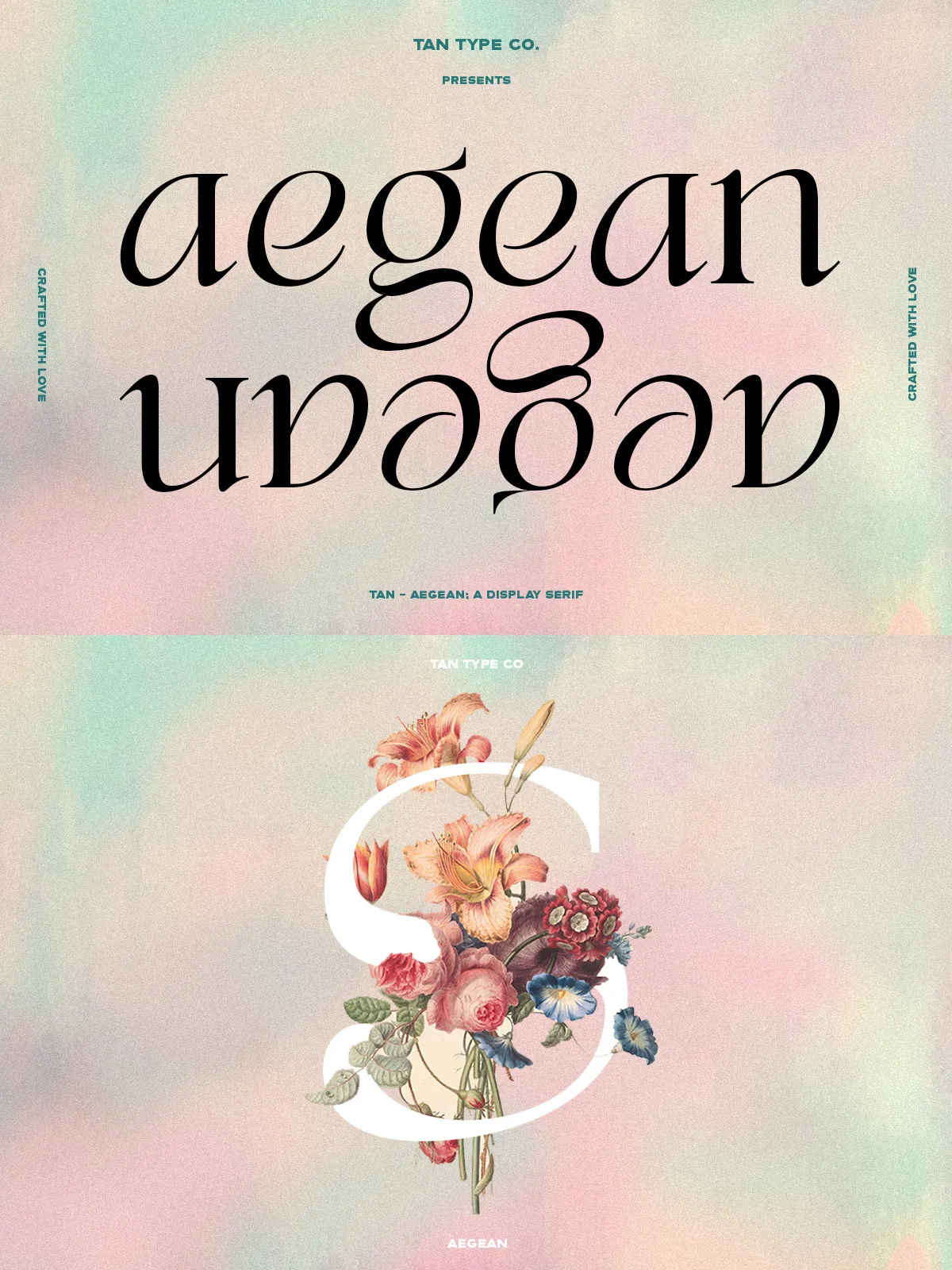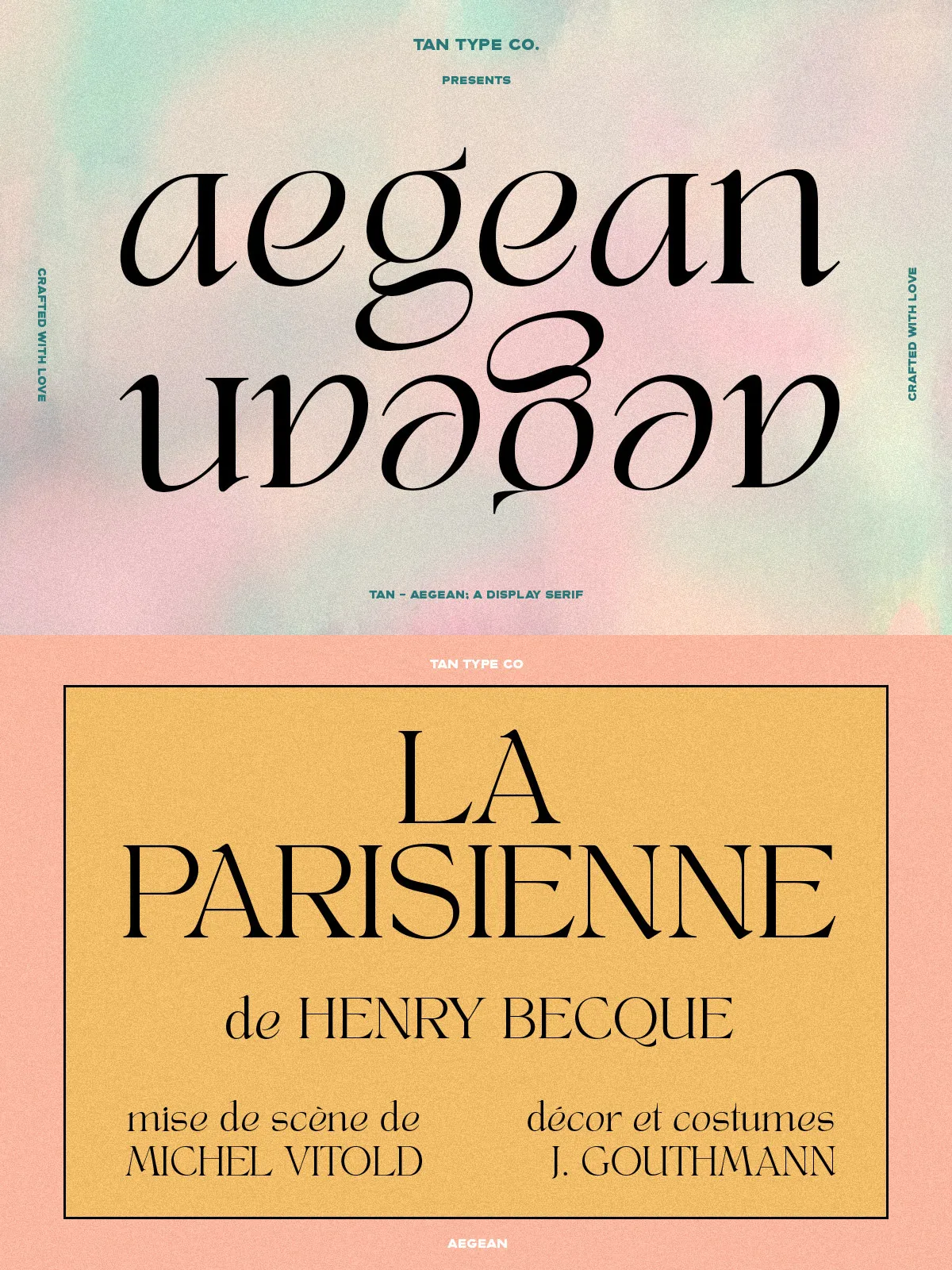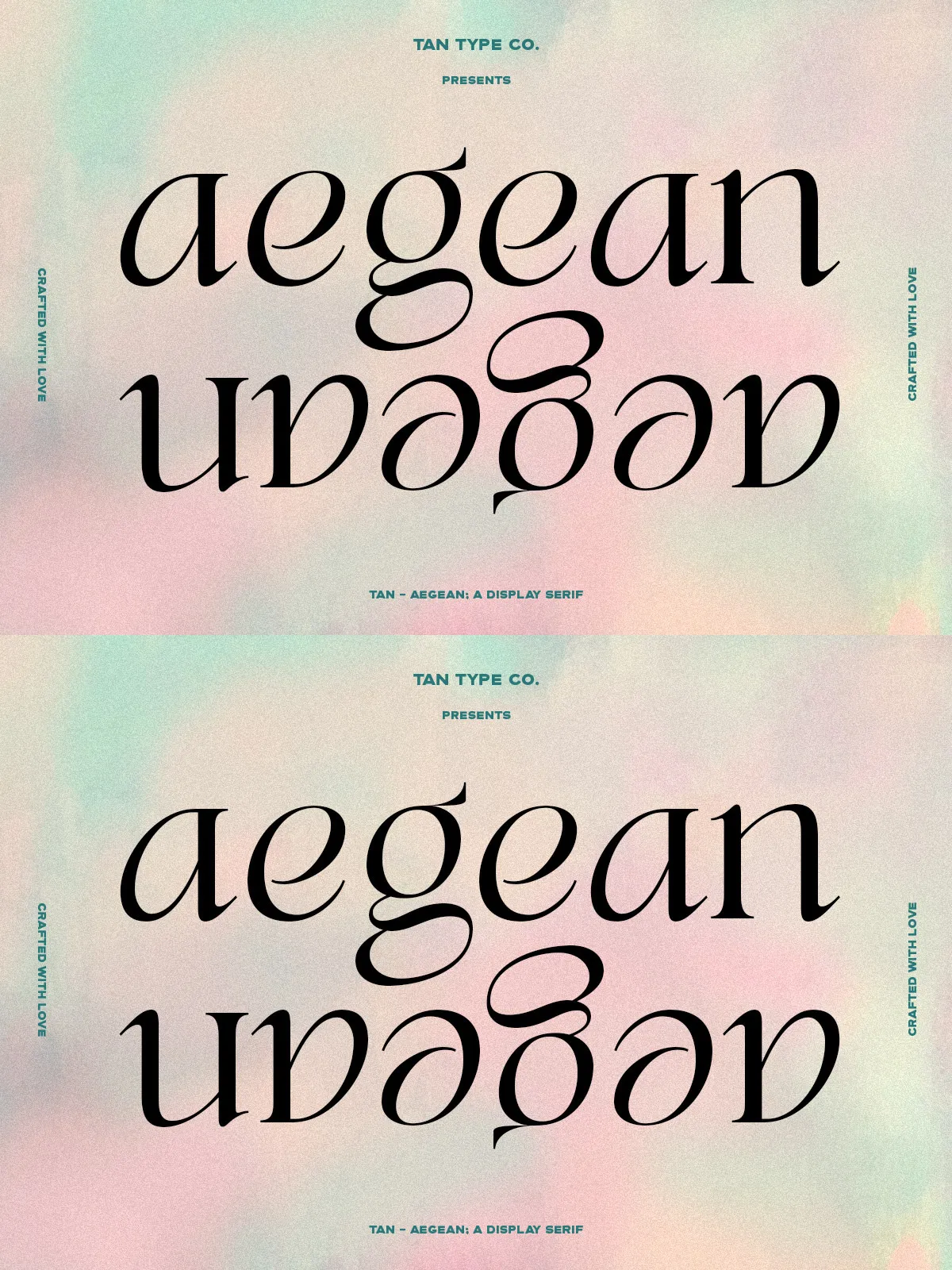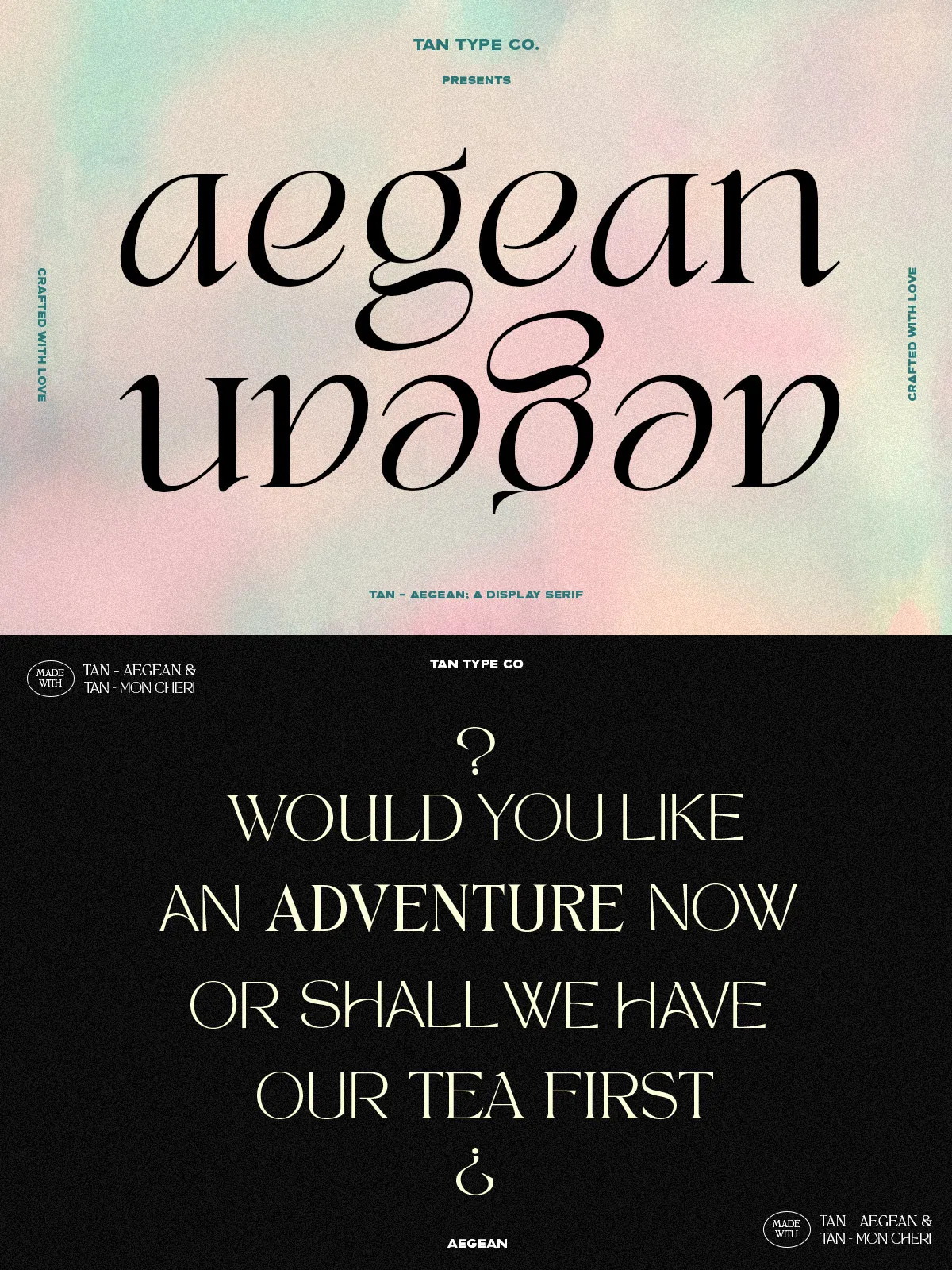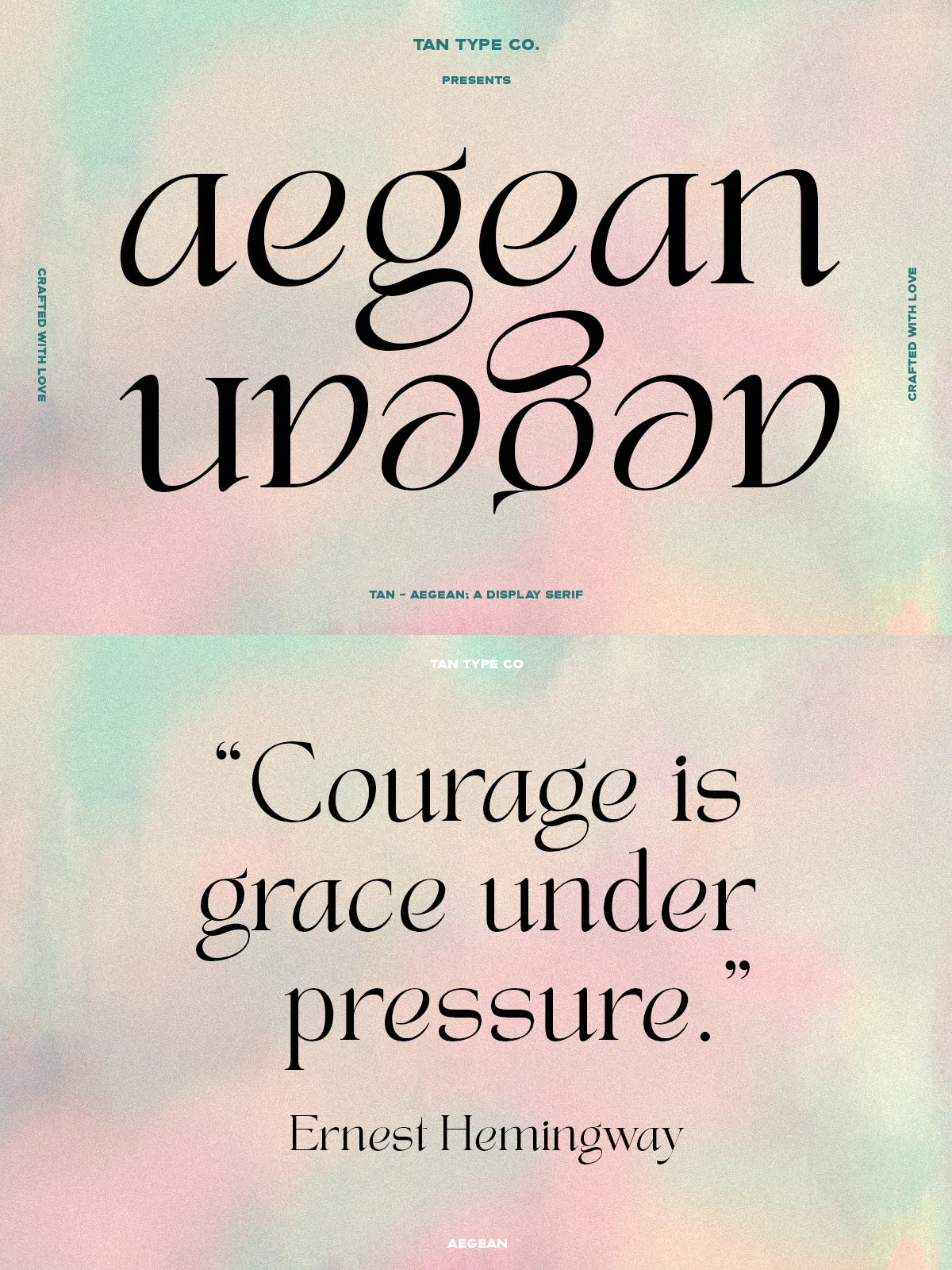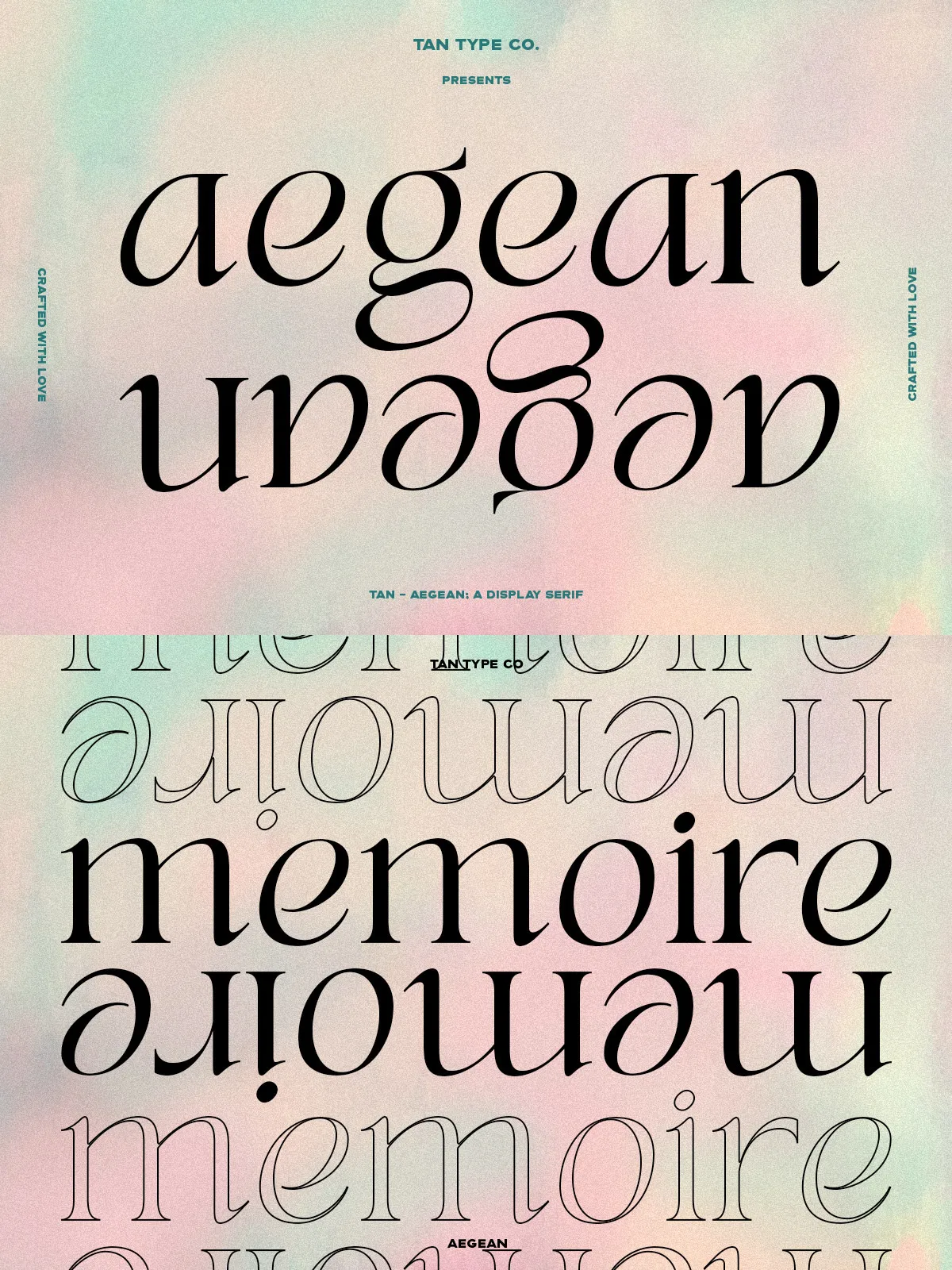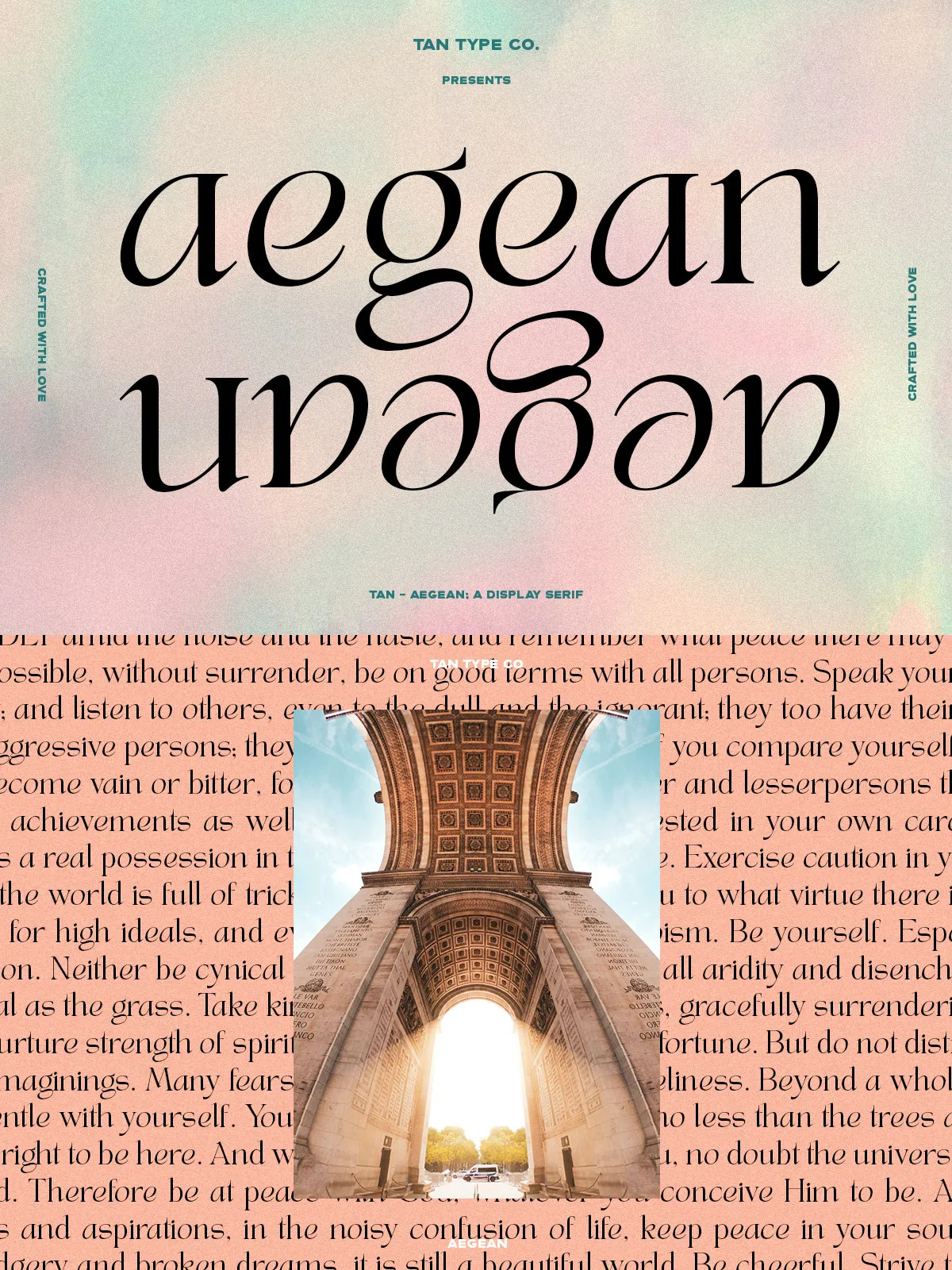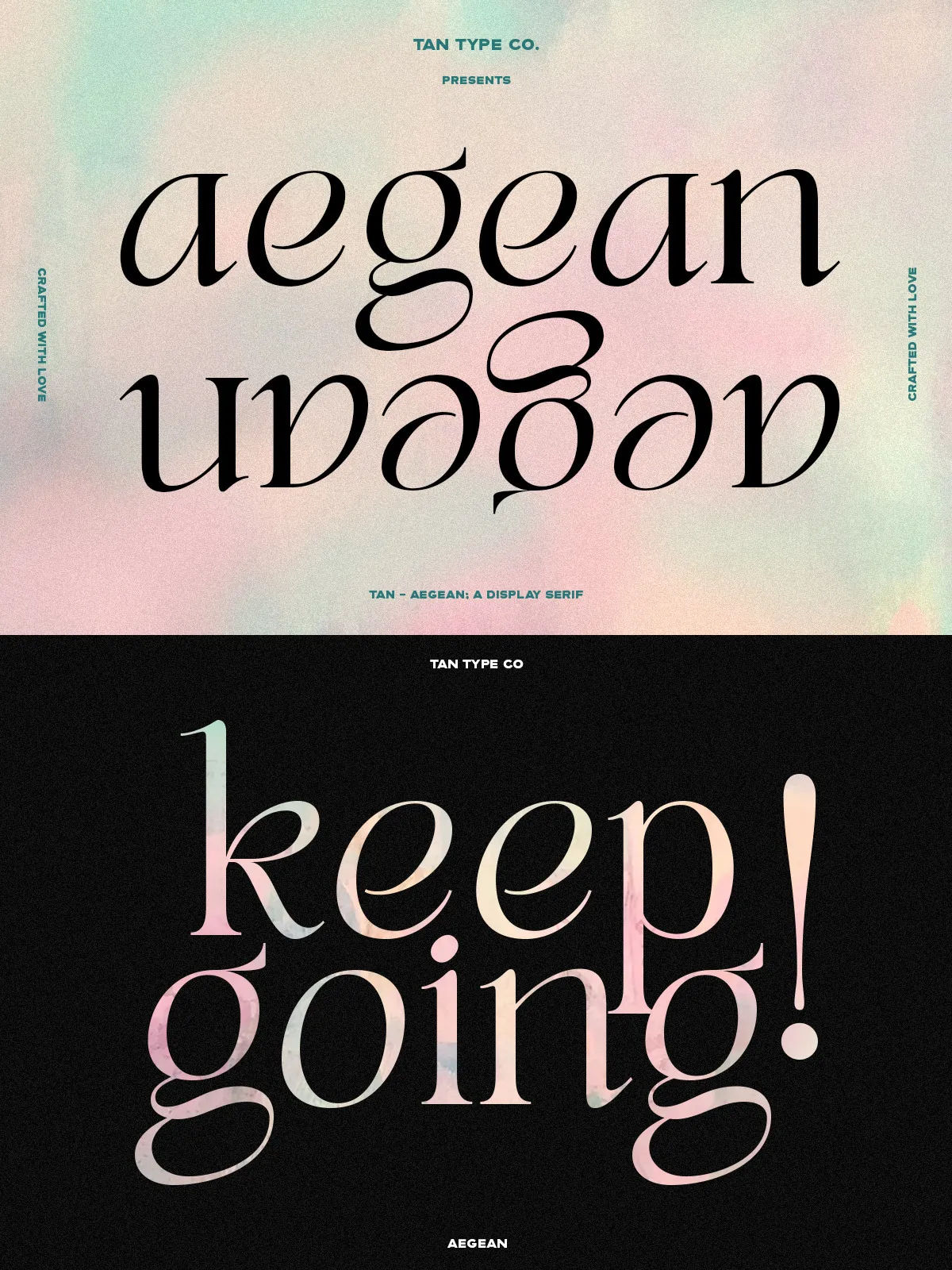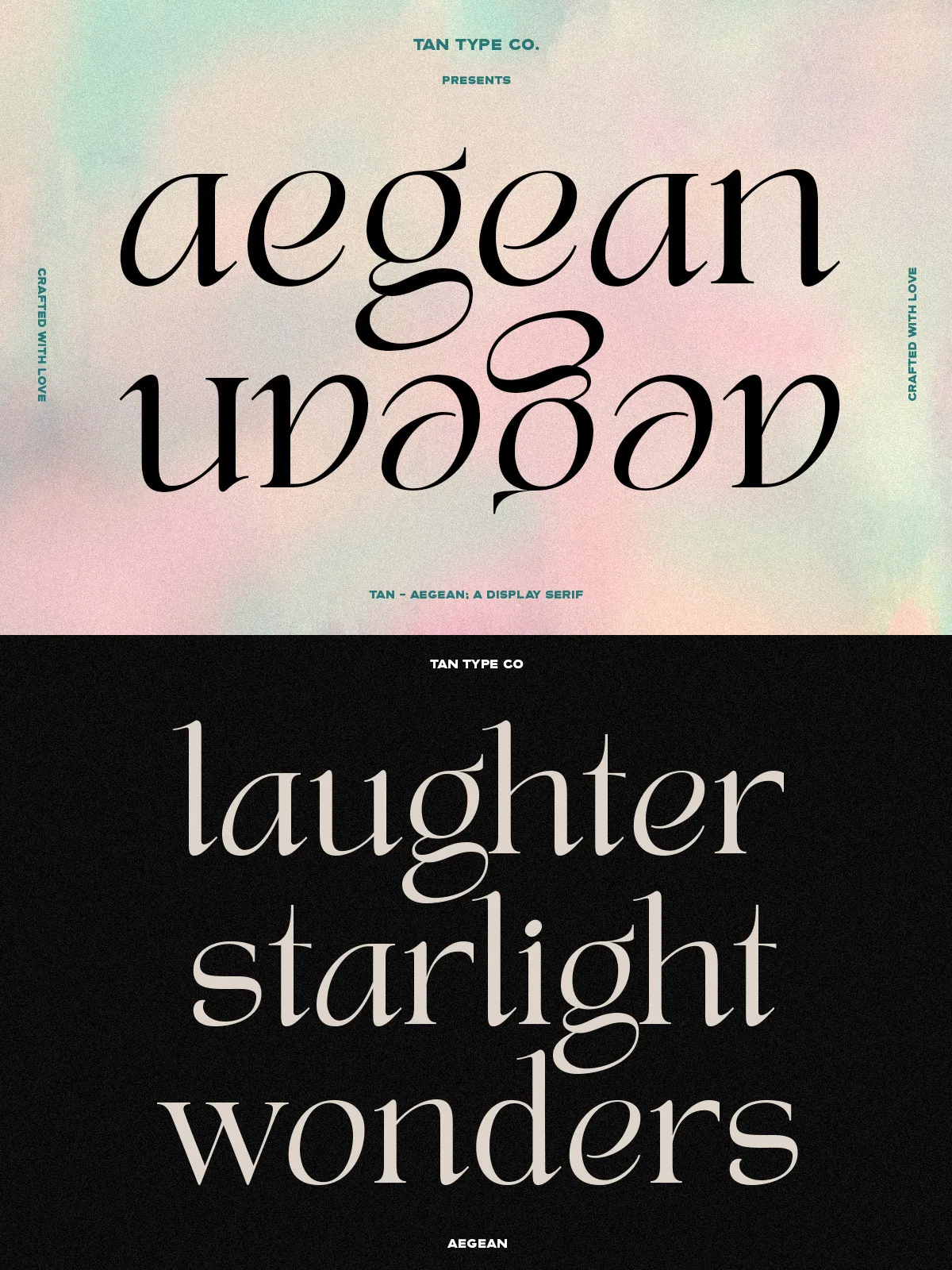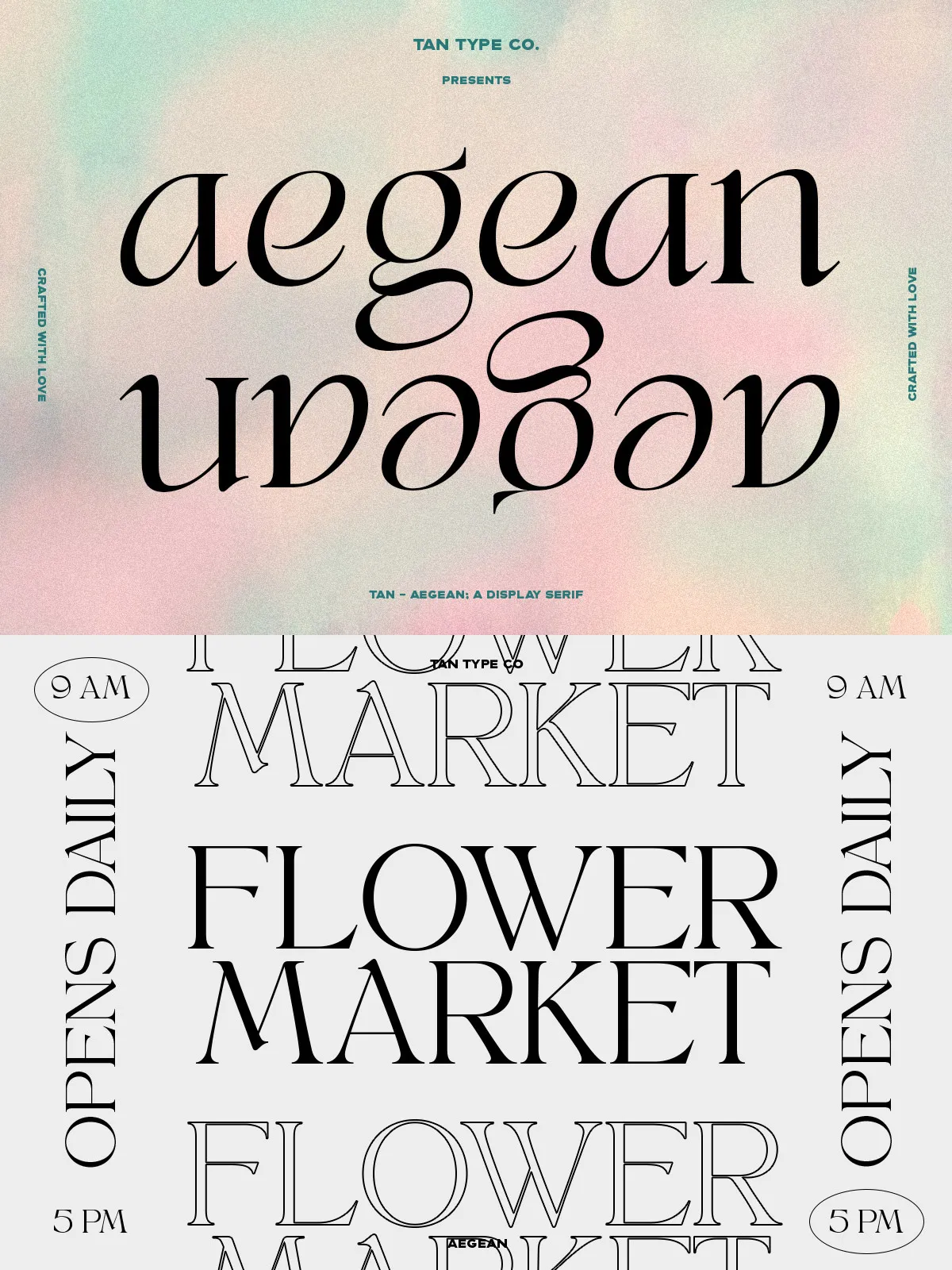
TAN – AEGEAN is a refined and elegant display serif font that masterfully blends classic design principles with a subtle touch of playfulness. This unique combination makes it an exceptionally versatile typeface, perfectly suited to elevate a wide range of design projects. Whether you are crafting sophisticated branding, editorial layouts, packaging, or digital content, TAN – AEGEAN delivers a timeless yet fresh aesthetic that captures attention and enhances your creative vision.
Classic Elegance Meets Versatility
The design of TAN – AEGEAN draws inspiration from traditional serif fonts, featuring well-proportioned letterforms and balanced stroke contrasts that evoke a sense of timelessness and reliability. However, it distinguishes itself by incorporating playful elements that add character and charm without compromising professionalism. This balance allows the font to adapt seamlessly to various contexts, from formal corporate identities to more creative and expressive projects.
Key Features and Benefits
- Elegant Display Serif: Designed to make headlines, titles, and prominent text stand out with grace and clarity.
- Classic and Playful Style: Combines traditional serif sophistication with subtle playful nuances for a unique typographic voice.
- Versatile Usage: Suitable for branding, editorial design, packaging, advertising, and digital media.
- Multilingual Support: Includes a comprehensive set of characters to support multiple languages, ensuring your designs reach a global audience.
Comprehensive Multilingual Support
Understanding the importance of global communication, TAN – AEGEAN offers extensive multilingual character support. This feature enables designers to create projects that cater to diverse linguistic audiences without sacrificing style or consistency. Whether your work involves European languages or other scripts supported by the font, TAN – AEGEAN ensures your typography remains elegant and readable.
Ideal Applications for TAN – AEGEAN
The elegant yet playful nature of TAN – AEGEAN makes it an excellent choice for a multitude of design projects, including:
- Branding and Logo Design: Create memorable and sophisticated brand identities that stand out in competitive markets.
- Editorial and Magazine Layouts: Enhance readability and visual appeal in headlines and feature text.
- Packaging Design: Add a luxurious and distinctive touch to product labels and packaging materials.
- Advertising and Marketing Materials: Craft compelling messages with a font that commands attention and conveys quality.
- Digital Content and Social Media: Maintain a consistent and elegant typographic style across online platforms.